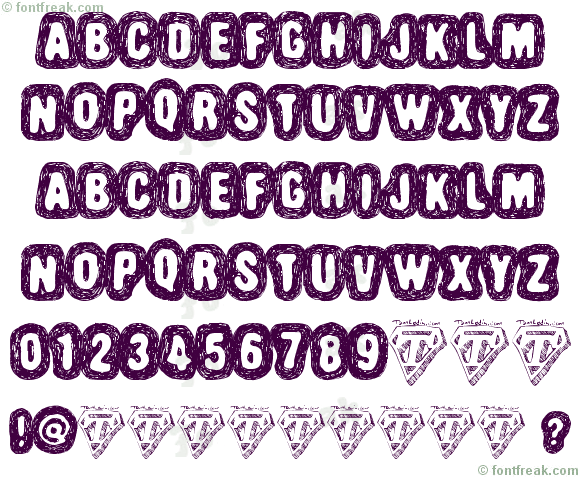
Truffle-Shuffle
About Truffle Shuffle
Truffle Shuffle is a unique display font designed by Tom Ledin, classified as a decorative typeface. This font captures the playful essence of its name, featuring rounded, bulbous letterforms that exude a sense of whimsy and fun. The strokes have a consistent weight, providing a bold presence while the slightly irregular outlines add a hand-crafted feel. The spacing between characters is generous, enhancing legibility and contributing to the overall lighthearted aesthetic. This font's distinctive characteristics make it an excellent choice for various creative projects.
The Truffle Shuffle font is particularly well-suited for uses such as children's book covers, vibrant party invitations, and eye-catching posters for events or festivals. Its playful design can also enhance branding for cafes or restaurants aiming for a casual and inviting atmosphere. Additionally, graphic designers can employ this font in digital content targeted at a younger audience, making it a versatile option for both print and online media.
What sets the Truffle Shuffle font apart is its ability to evoke a sense of nostalgia and joy, reminiscent of carefree childhood days. The unique style and versatility make it a standout choice for anyone looking to add a playful element to their designs. For those interested, a Truffle Shuffle font free download is available, making it easier than ever to incorporate this delightful typeface into your next project.